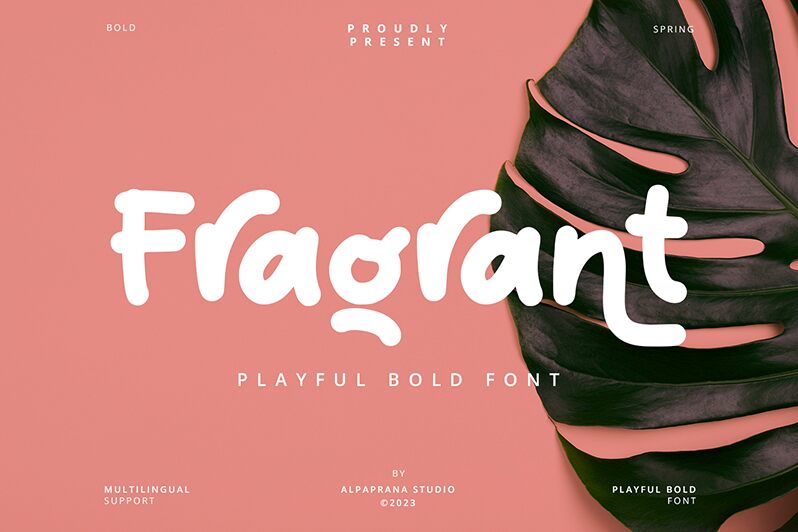
Fragrant
Fragrant font by Alpaprana Studio is a bold handwritten typeface with a casual and friendly feel. It balances modernity with an approachable warmth, capturing attention through its unique shape and fluidity. Each letter leaves the visual statement you need for personal and professional projects with fun designs.